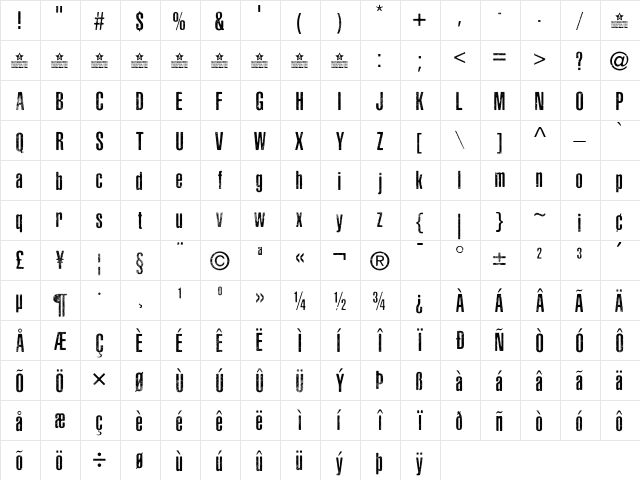
ASPHALTIC SCRATCH ROUNDED PERSO Regular
Design Context for ASPHALTIC SCRATCH ROUNDED PERSO Typeface
ASPHALTIC SCRATCH ROUNDED PERSO uses gentle rounded endings to create a warm, inviting typographic personality — less corporate than geometric sans, more refined than playful display fonts.
Well-suited to UI design, mobile interfaces, and any brand that wants approachability without sacrificing clarity.
Font Pairing: Pairs well with a rounded or humanist sans for body copy, maintaining the friendly tone without relying on ASPHALTIC SCRATCH ROUNDED PERSO to carry extended reading.
Pro Tip: Use ASPHALTIC SCRATCH ROUNDED PERSO for UI elements, app interfaces, and anywhere a friendly, approachable tone needs to be maintained without sacrificing clarity.